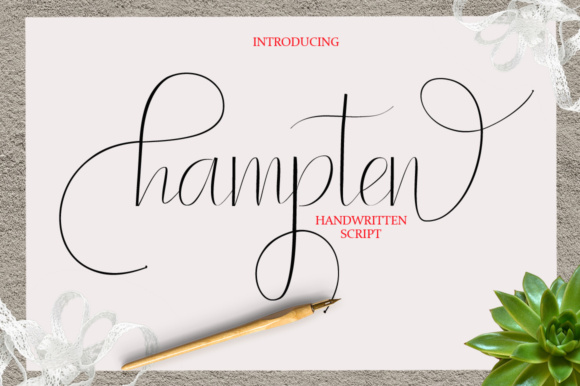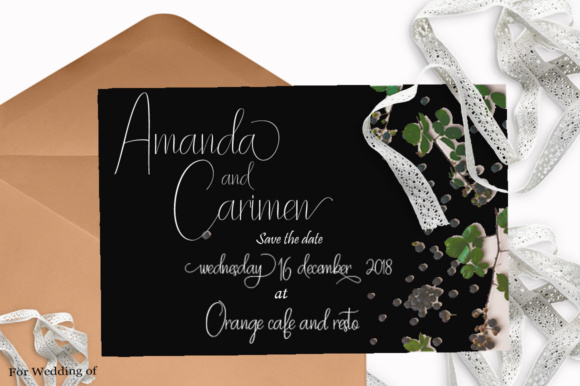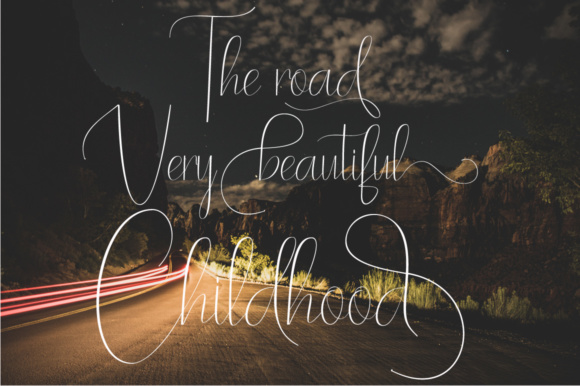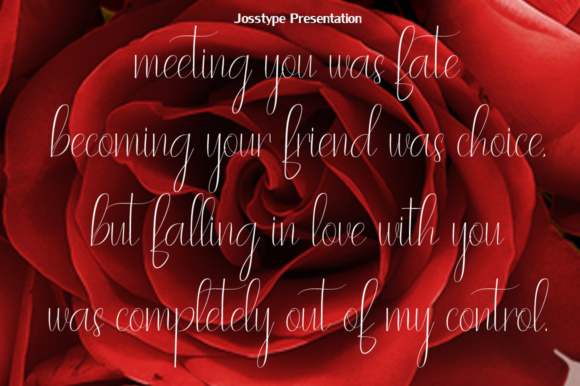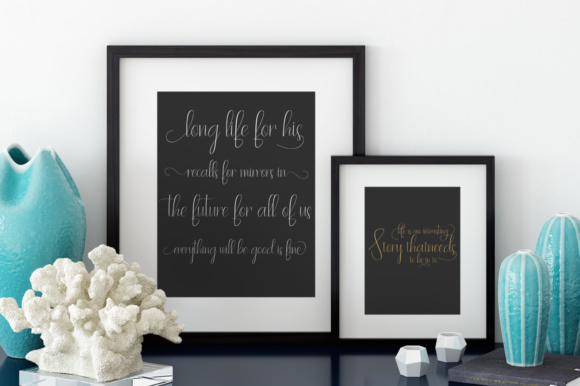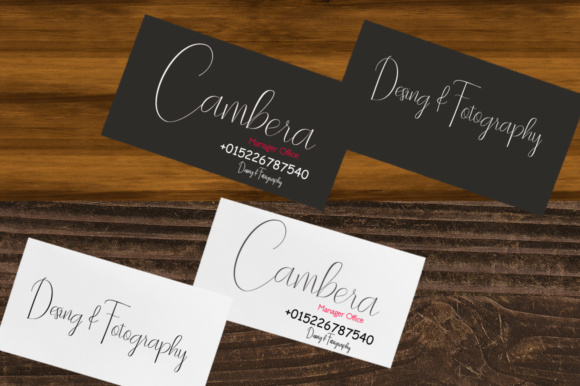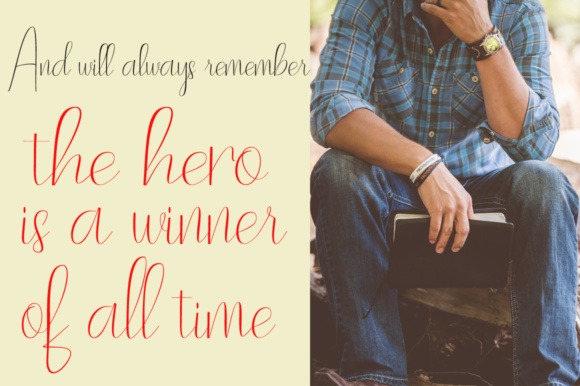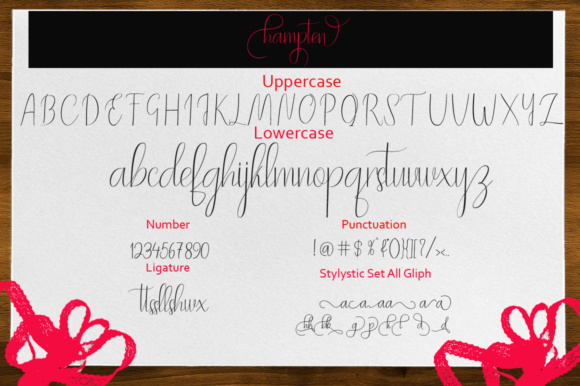
Hampten Font
About Hampten Font
Hampten is a beautiful swashy calligraphy font, ideal for use in a wide range of projects. This clean yet embellished script font is a great way to add some presence and classiness to your projects.